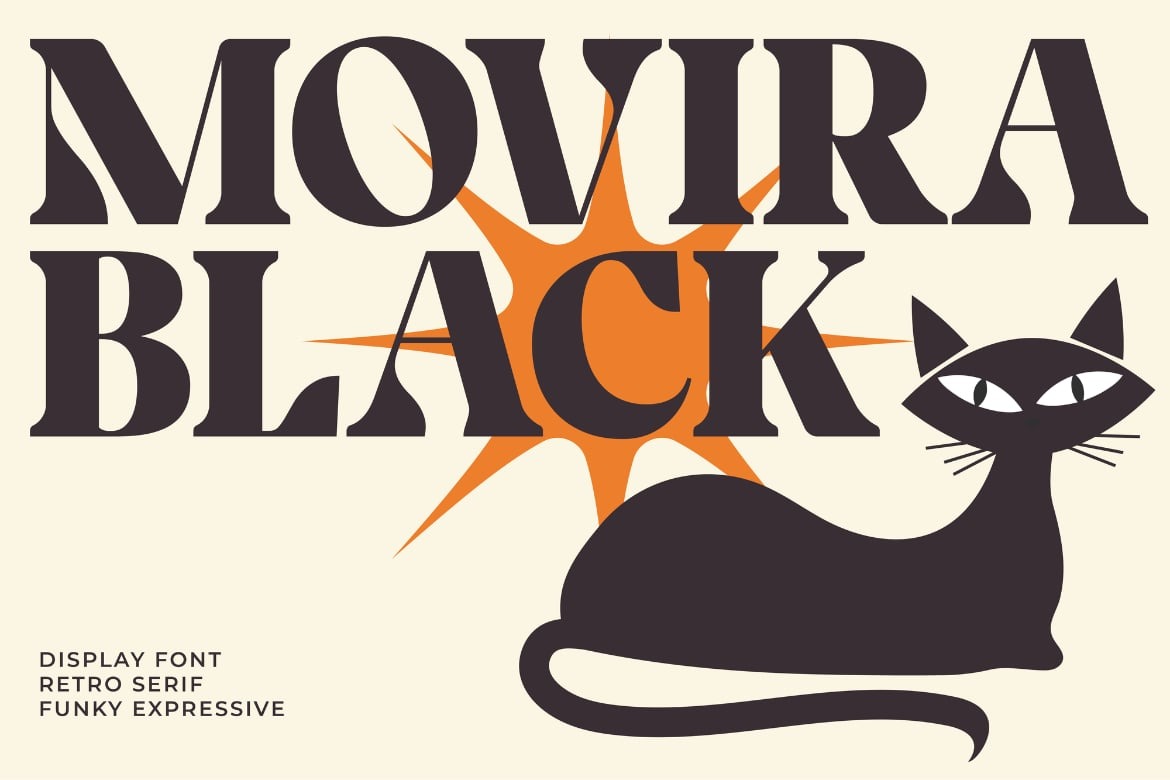
Movira Black – Bold Serif Font
Movira Black – Bold Serif Font is a distinctive and expressive font crafted to bring personality, structure, and creative energy into your projects. Movira Black is a bold retro serif display font that blends vintage elegance with expressive character. Inspired by mid-century editorial typography, classic book covers, retro advertising, and timeless branding, Movira Black features dramatic high-contrast strokes, sharp wedge serifs, and distinctive letterforms that command attention.
Designed to create unforgettable headlines, Movira Black brings sophistication and personality to every project. Whether you’re crafting luxury branding, packaging, restaurant identities, or retro-inspired posters, this typeface delivers a refined yet playful aesthetic that stands out across print and digital media.
With its bold presence and nostalgic charm, Movira Black is the perfect choice for designers seeking a display serif that feels both classic and contemporary.